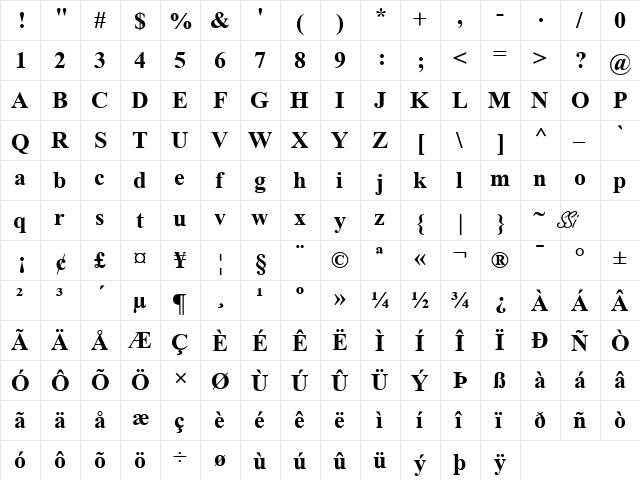
Greco Recut SSi Bold
Design Context for Greco Recut SSi Typeface
Greco Recut SSi offers clean, dependable letterforms without strong stylistic allegiance, making it a practical choice for designers who need flexibility. The heavy weight commands attention and anchors typographic hierarchies.